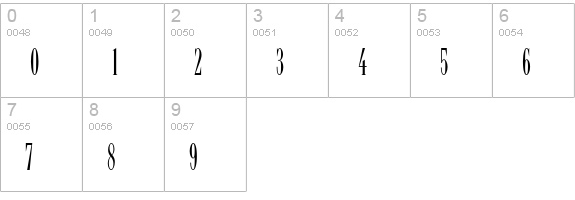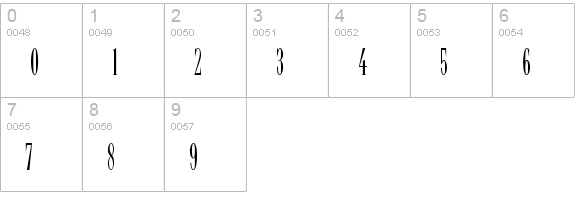
Latino Elongated Std Font Details
Introducing Latino Elongated Std, a stunning and versatile font that exudes a sense of elegance and sophistication. This font captivates with its elongated letterforms and perfectly balanced proportions, making it an ideal choice for a wide range of design projects. Latino Elongated Std is not only visually pleasing but also highly legible, ensuring that your message is communicated clearly and effectively. Its timeless appeal and classic aesthetic make it suitable for various applications, including logos, branding, editorial design, and more. One of the best features of Latino Elongated Std is that it is free to download. Yes, you read that right! This exquisite font can be yours without any cost, allowing you to enhance your designs without breaking the bank. Simply head over to FontsMarket.com and download Latino Elongated Std effortlessly. With its extensive character set, including uppercase and lowercase letters, numerals, punctuation marks, and multilingual support, Latino Elongated Std offers endless possibilities for creative expression. Whether you're designing a sleek and modern website or a vintage-inspired print piece, this font will elevate your work to new heights. So why wait? Don't miss out on the opportunity to add Latino Elongated Std to your font library. Download it for free today at FontsMarket.com and unlock a world of design possibilities. Let your creativity soar with this remarkable typeface that effortlessly blends timeless elegance with modern sensibilities.